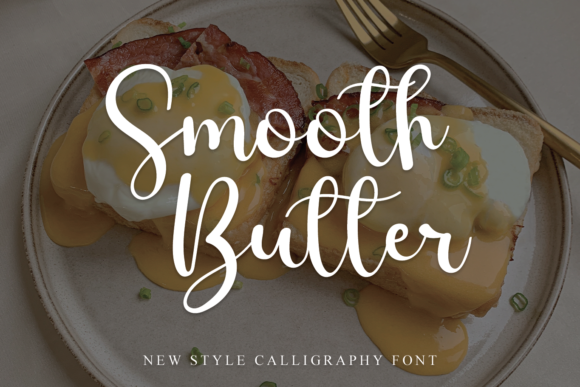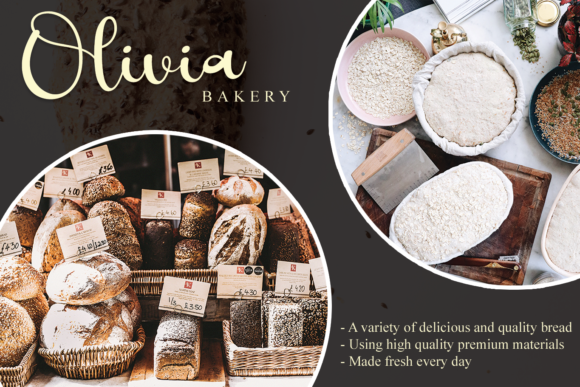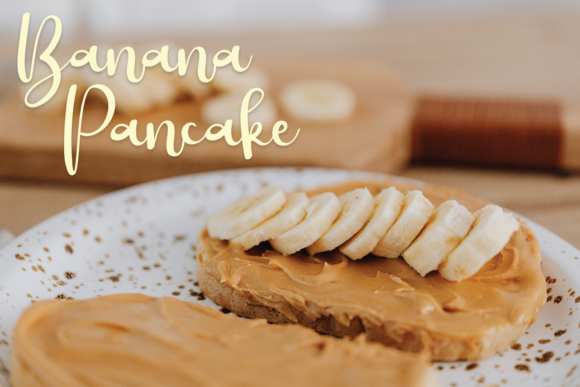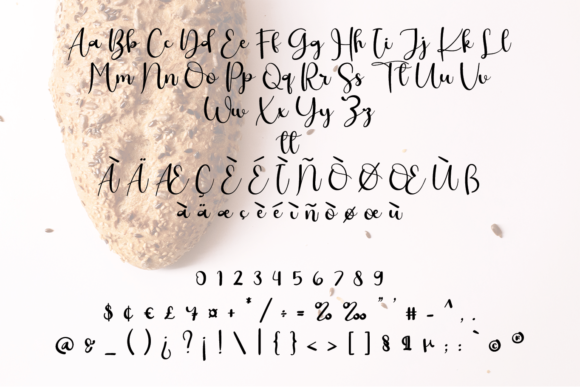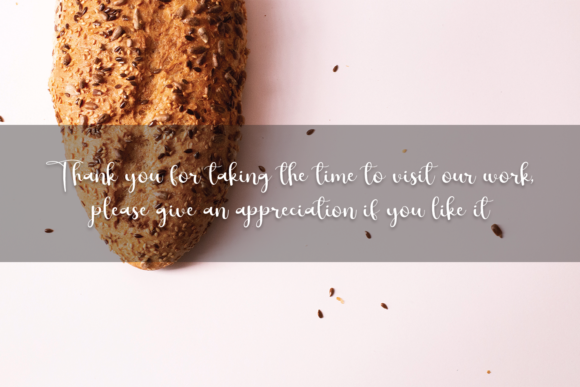
Smooth Butter Font
About Smooth Butter Font
Smooth Butter feels equally delicate and chic. It looks lovely on wedding invitations, thank you cards, quotes, greeting cards, logos, business cards and every other design which needs a customized touch.